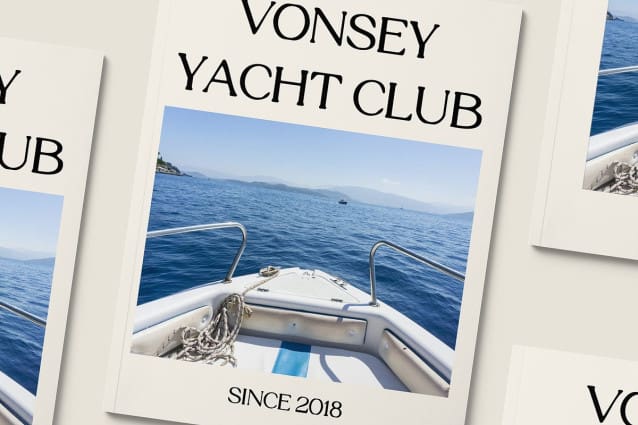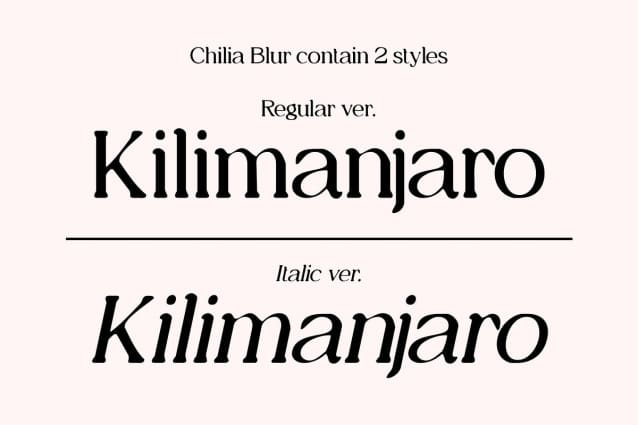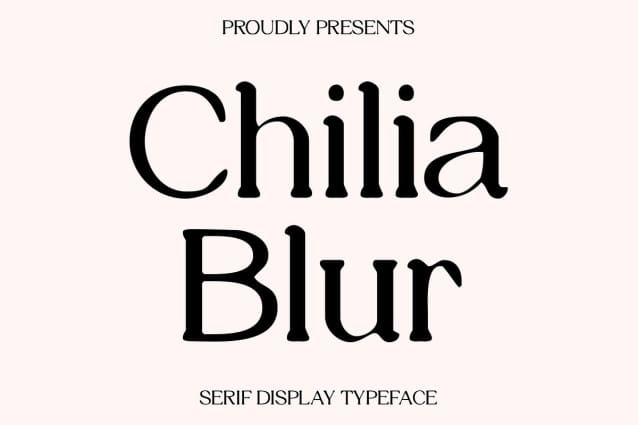
Chilia Blur Font
Chilia Blur Font offers a fresh perspective on serif fonts with its dynamic blur effect. This font combines the classic elegance of serif typefaces with a modern twist, making it perfect for a variety of display applications.
Infused with blur vibes, Chilia Blur adds a touch of modernity to your designs. The blur effect softens the edges of each letter, creating a sense of movement and depth that is ideal for capturing attention in headlines, banners, and other display uses.
Designed specifically for display purposes, Chilia Blur excels in large sizes, making it ideal for creating eye-catching headlines, branding materials, posters, and more. Its unique blend of classic serif styling and modern blur effects makes it a versatile choice for designers looking to make a statement.
Despite its unique appearance, Chilia Blur is versatile and easy to use. The font works well in both large and small sizes, making it suitable for a variety of applications. Whether you’re designing a sleek corporate identity or a stylish editorial layout, Chilia Blur adds a dynamic and modern touch to any design.